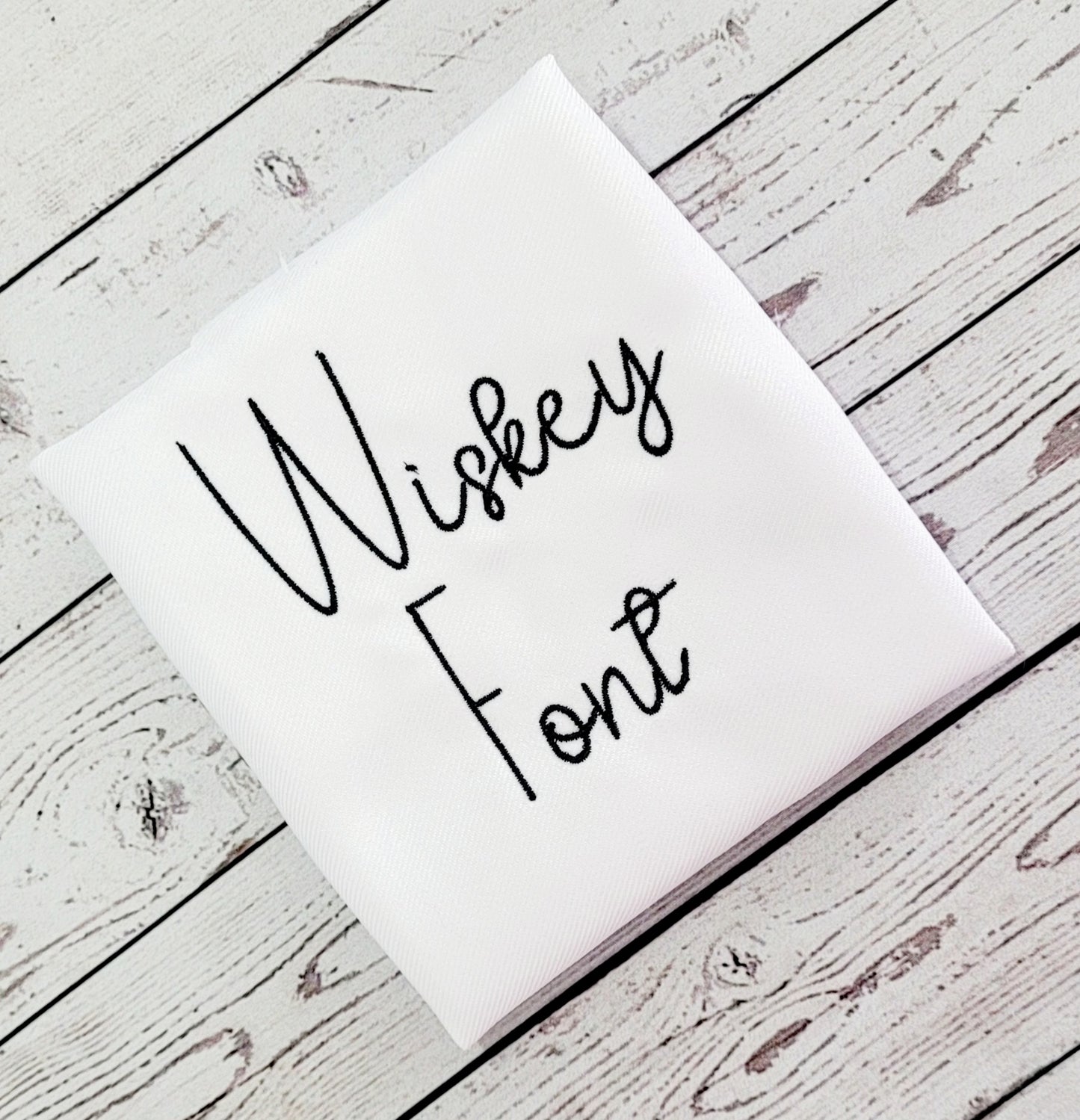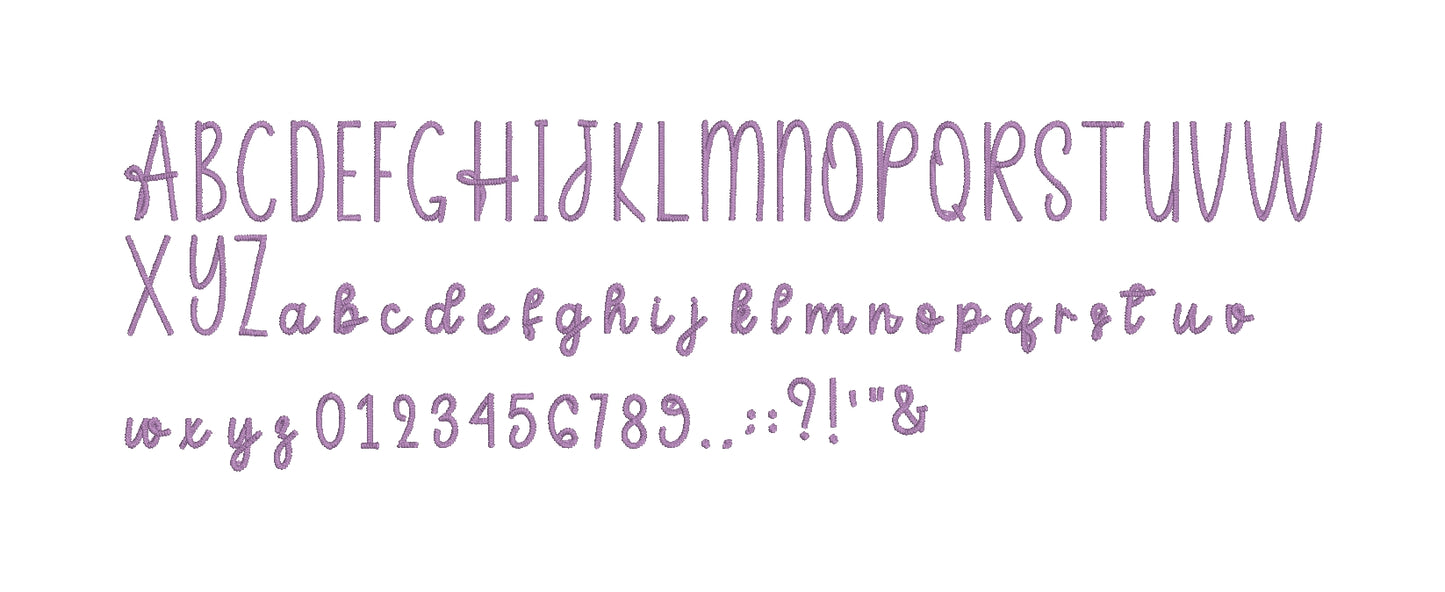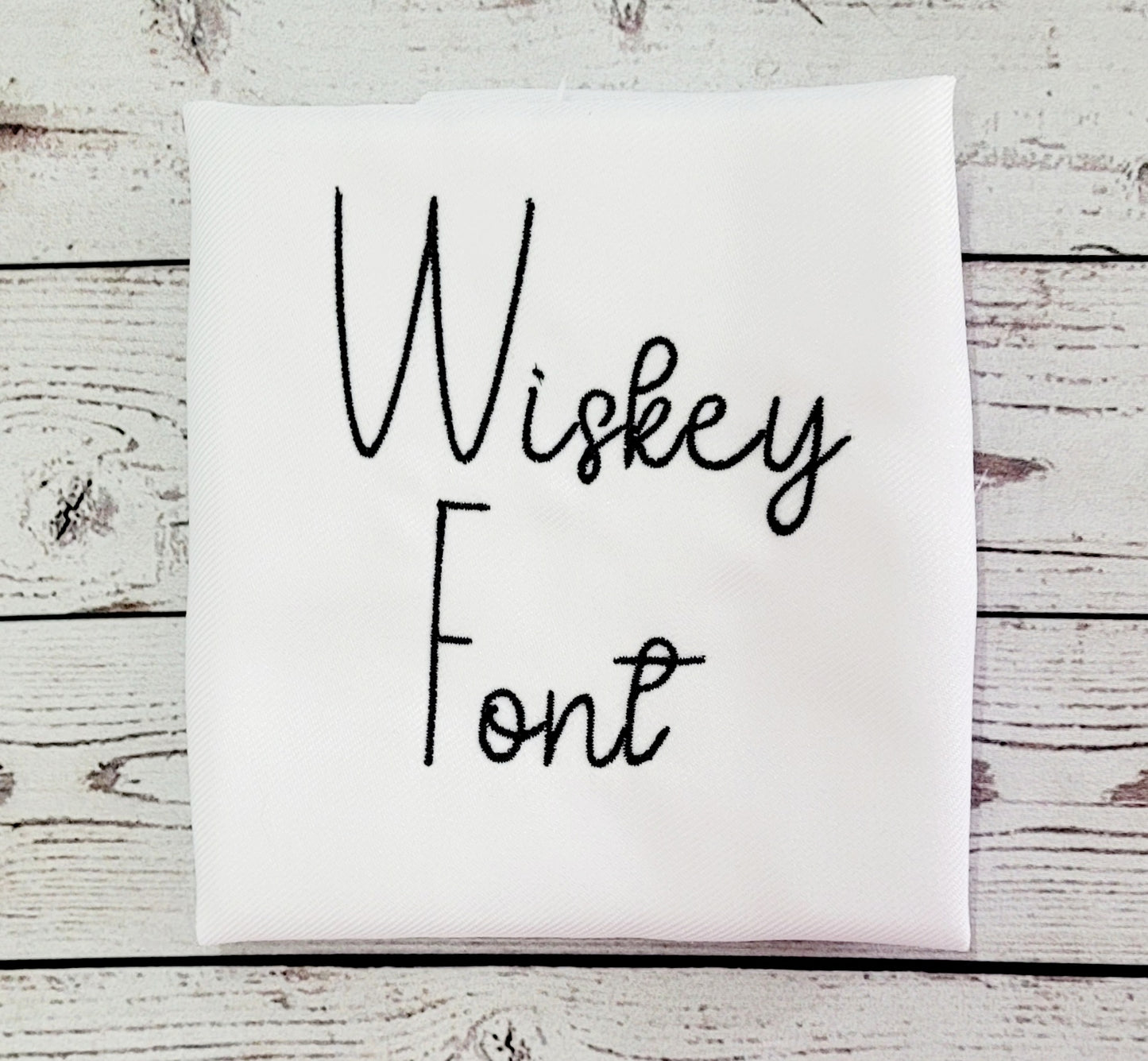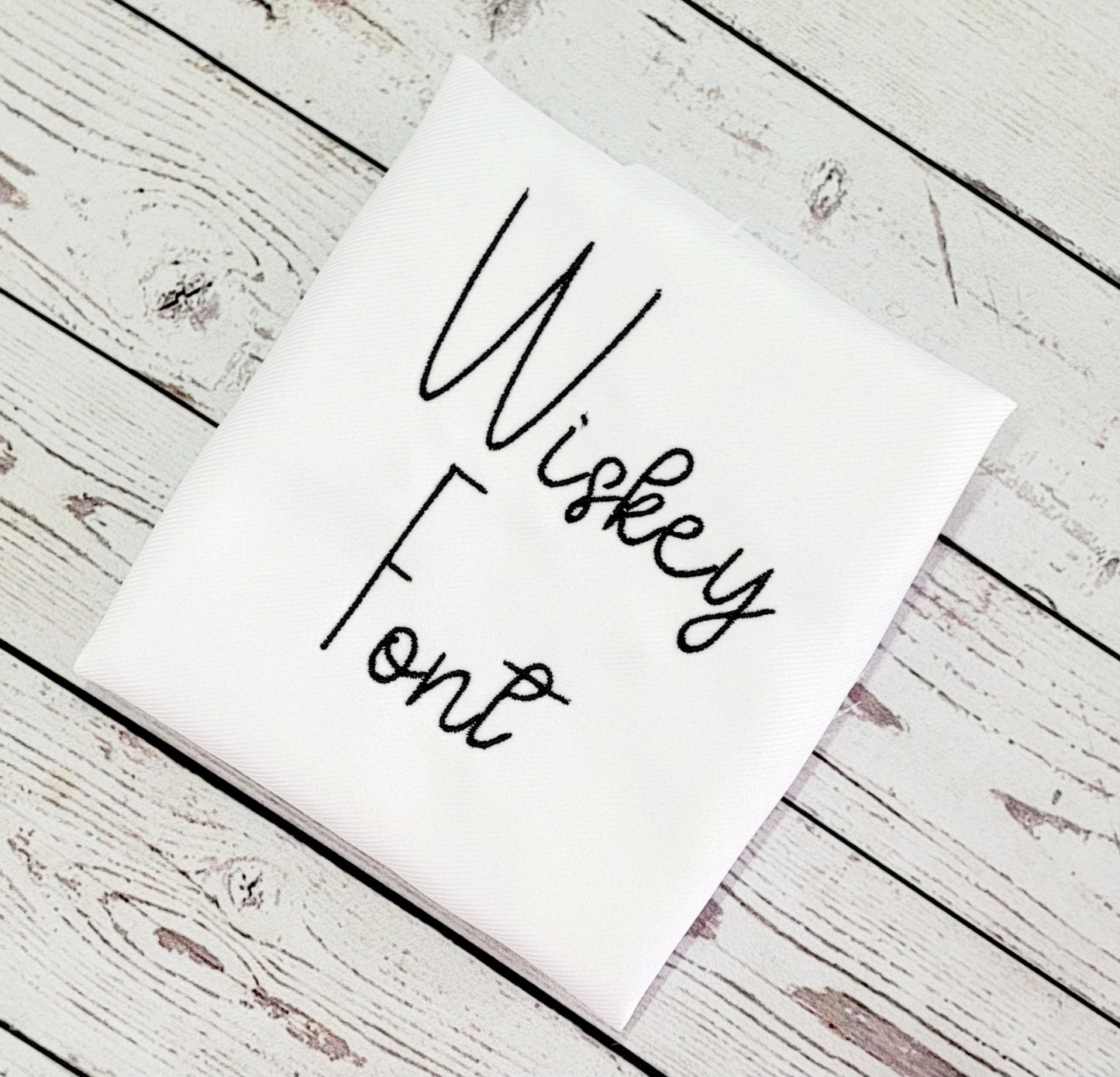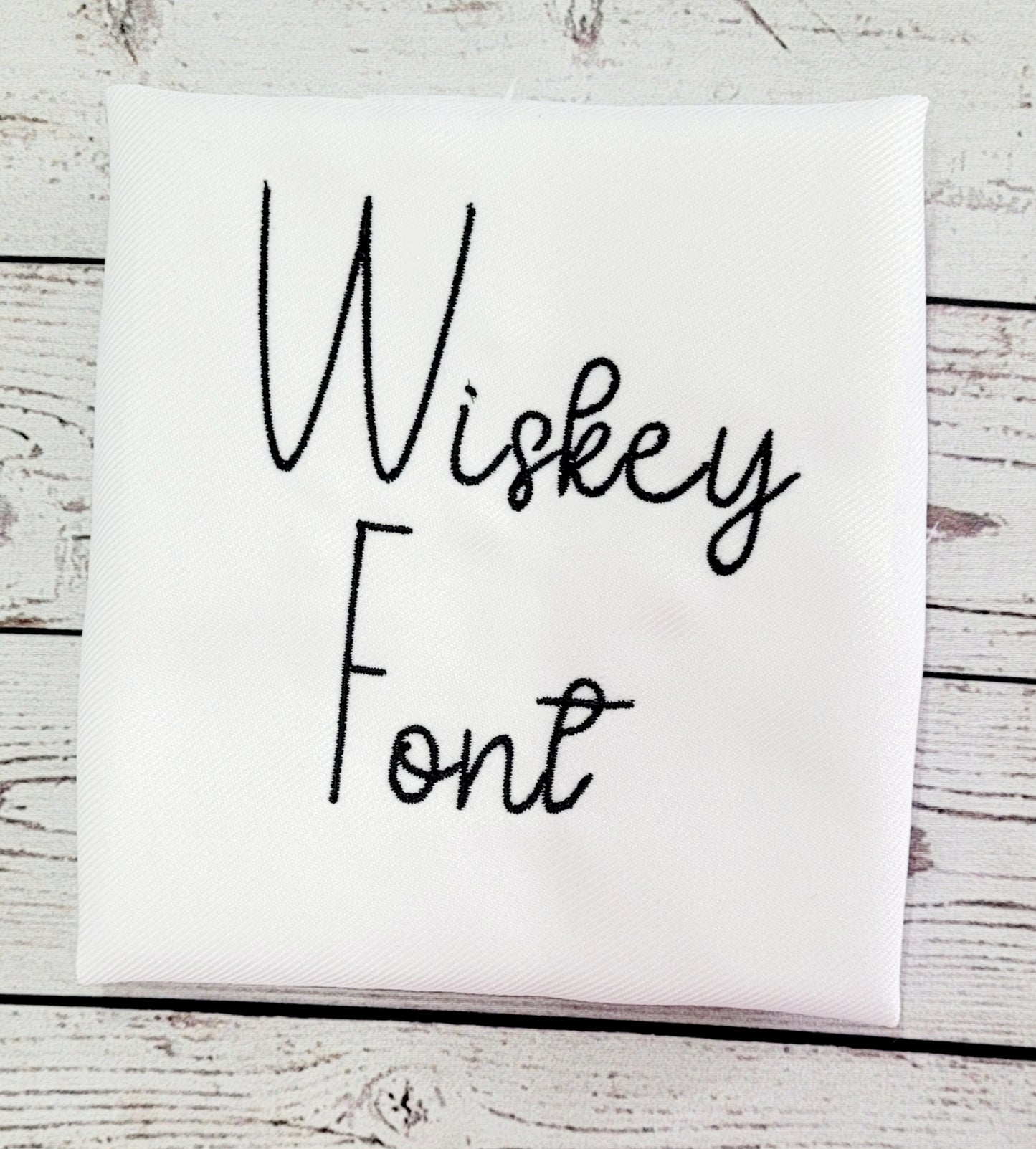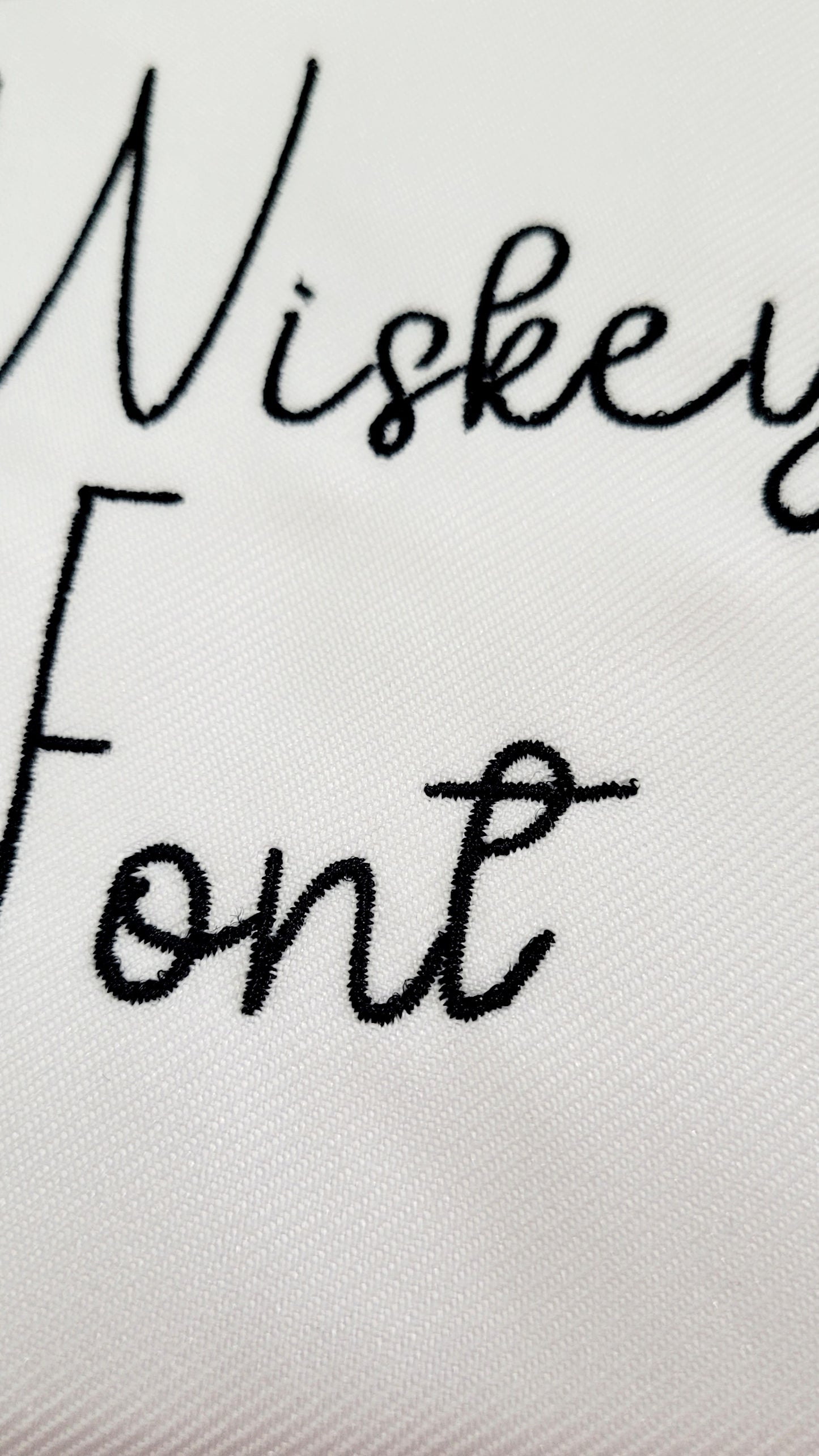
Wiskey Font Machine Embroidery File
Add some whimsy to your embroidery with our Wiskey Font Machine Embroidery File. Create unique designs with this playful addition to your collection. Cheers to fun stitching!